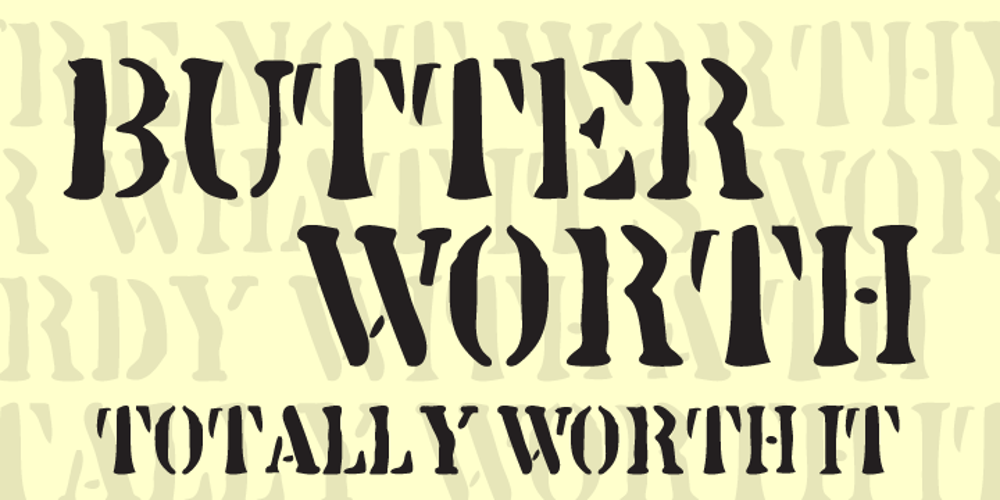
Butterworth
Butterworth font
Butterworth Font Family was designed by published by AdultHumanMale. Butterworth contains 2 styles and family package options. Butterworth was designed to reflect the dying, degraded and worn, hand painted signs I had seen around the old Butterworth ferry terminal in Penang Malaysia. I plan for Butterworth to be the first of many Malaysia inspired typefaces.